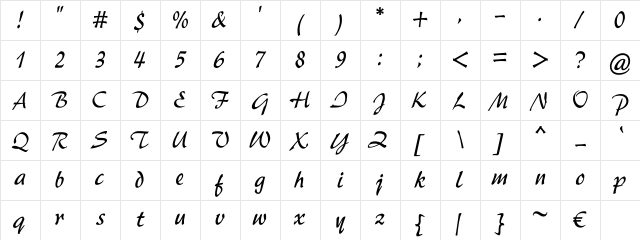
AR Script3 Bold flows with the natural rhythm of handwritten lettering, making it ideal for designs that call for warmth and personal expression. Its bold stroke weight gives it real presence on the page.
Font Pairing: Combine AR Script3 Bold with a simple geometric sans for maximum contrast - the tension between flowing curves and clean structure is a classic typographic pairing.
Pro Tip: Use AR Script3 Bold for short runs of text - names, titles, or taglines. Extended body copy in script faces tires the eye quickly.